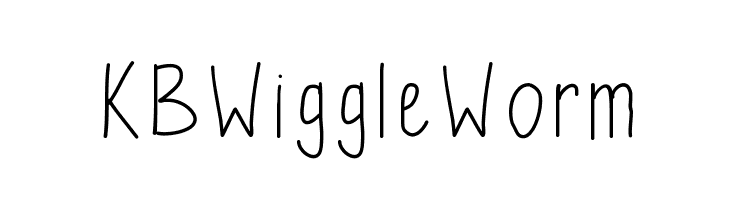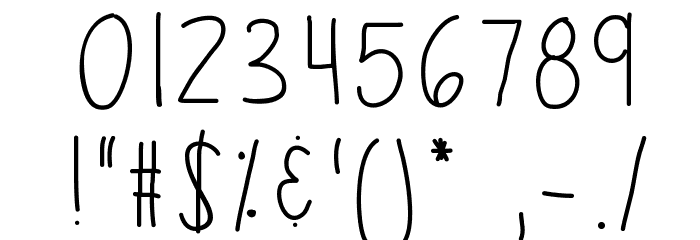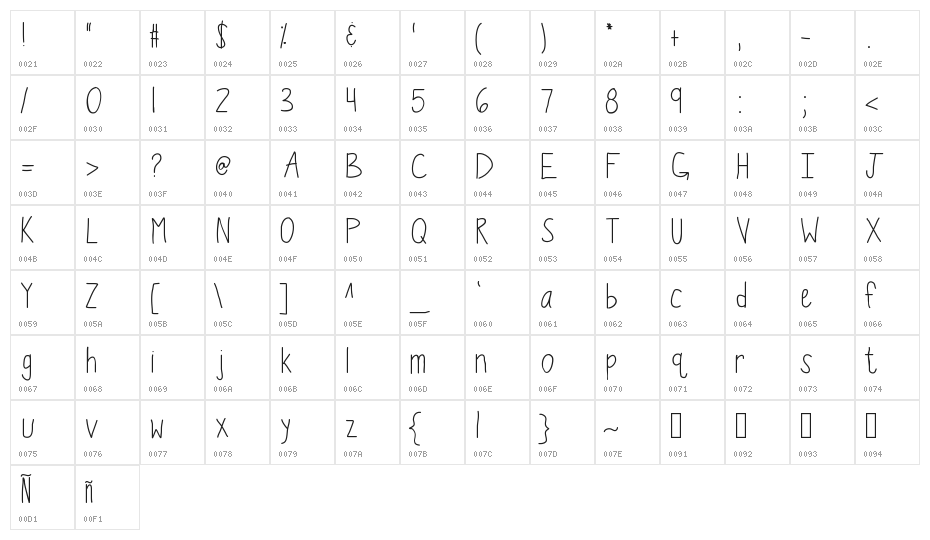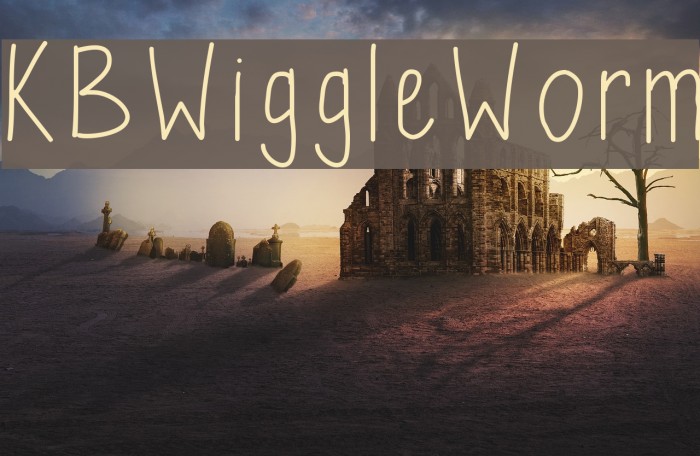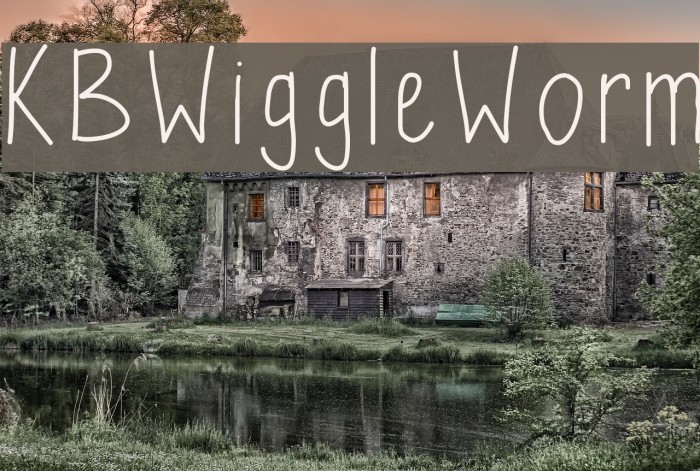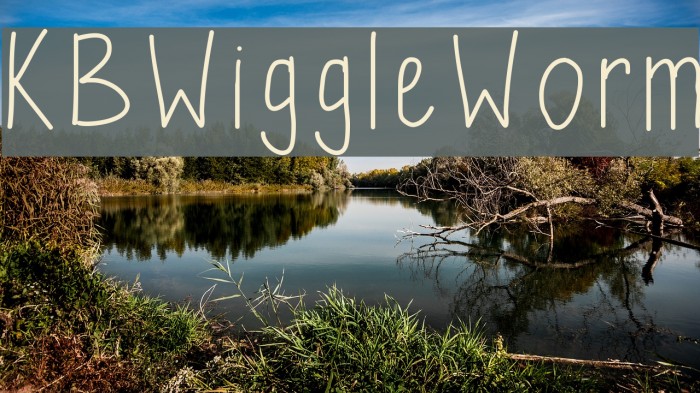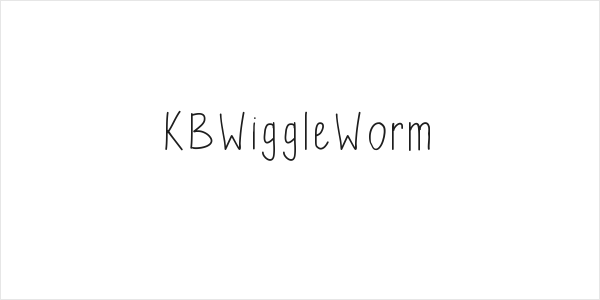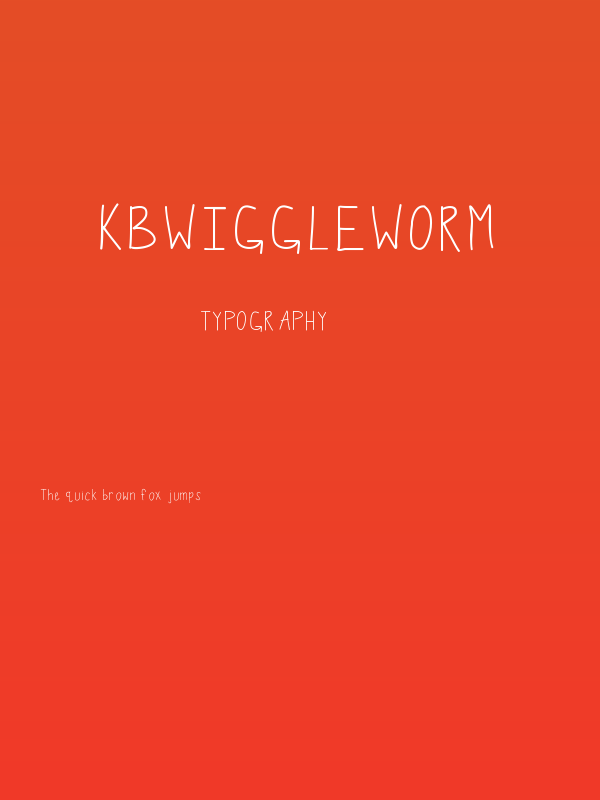
KBWiggleWorm Font
KBWiggleWorm Description
This playful and whimsical font features a hand-drawn style with a slightly irregular, wavy appearance that gives it a lively and informal feel. The characters are tall and narrow, with a consistent stroke width that maintains readability while adding a touch of personality. The uppercase and lowercase letters are distinct, with the lowercase letters exhibiting a charming, slightly exaggerated loop and curve. Numbers and special characters follow the same playful design, making this font versatile for creative projects. Its unique style is perfect for capturing attention and conveying a sense of fun and creativity.